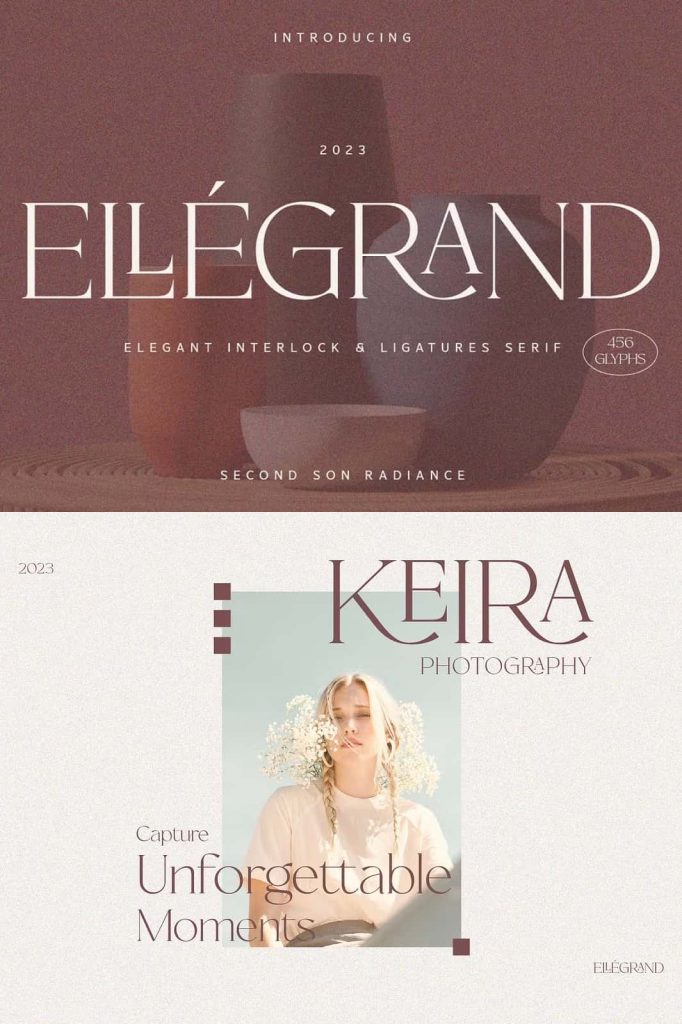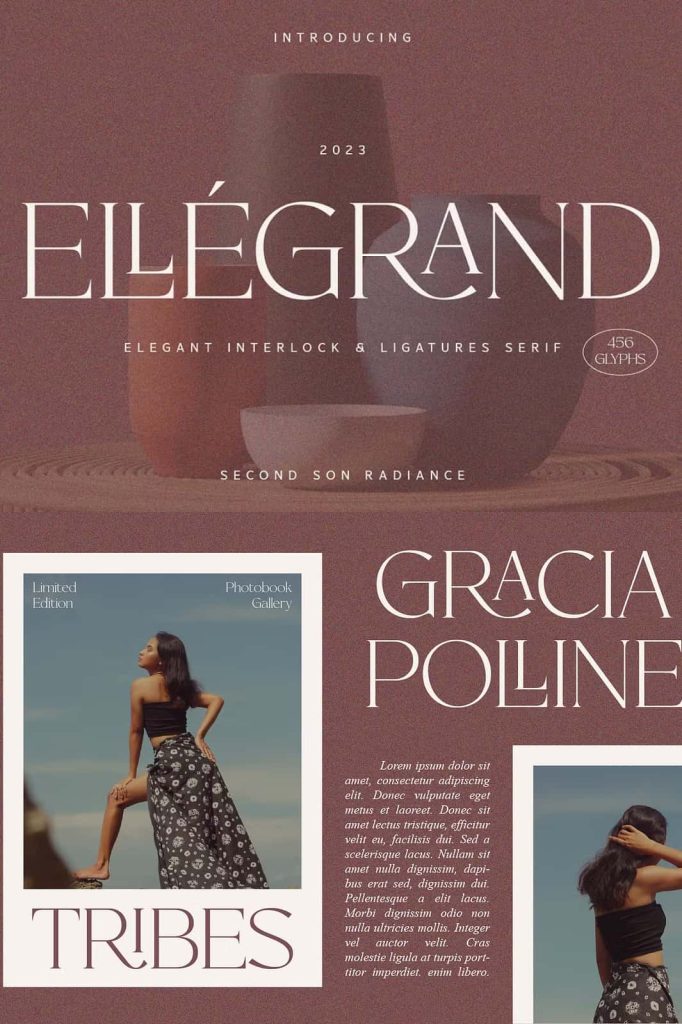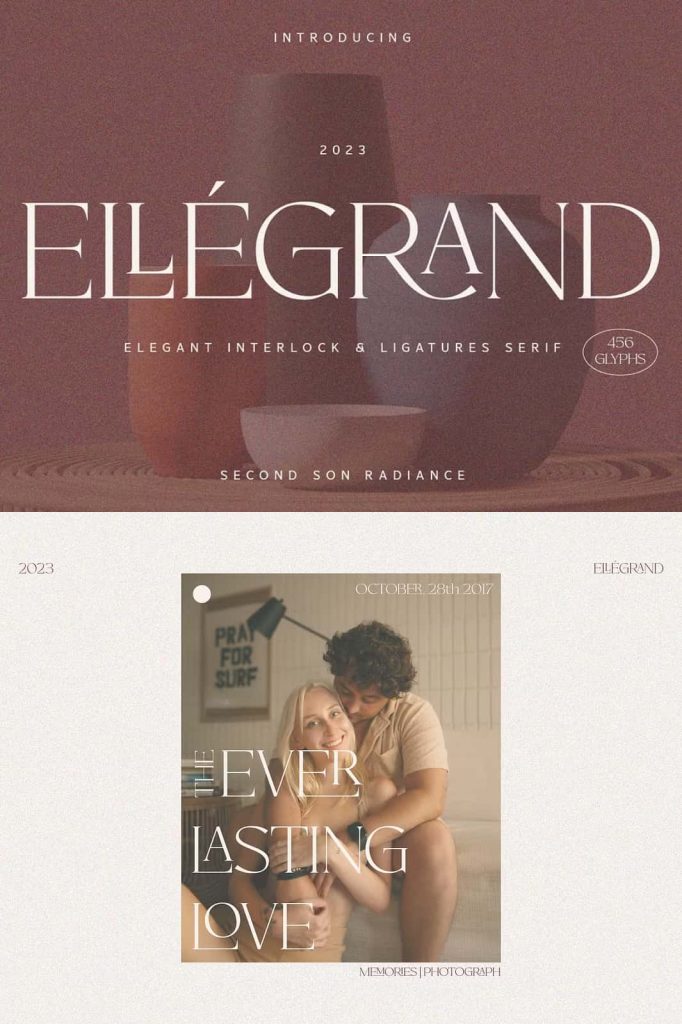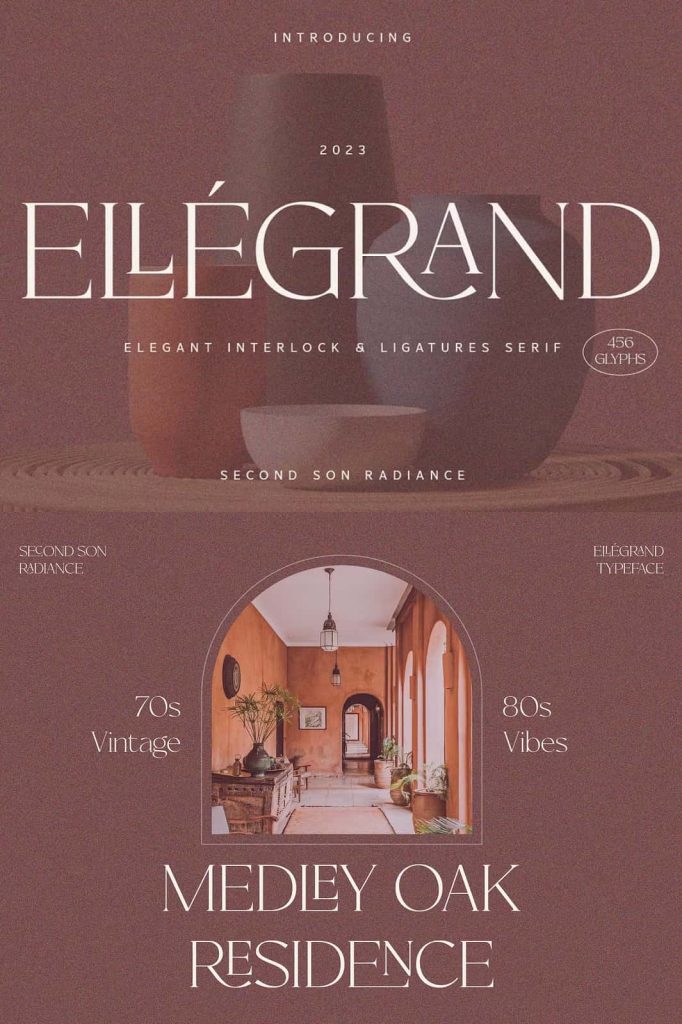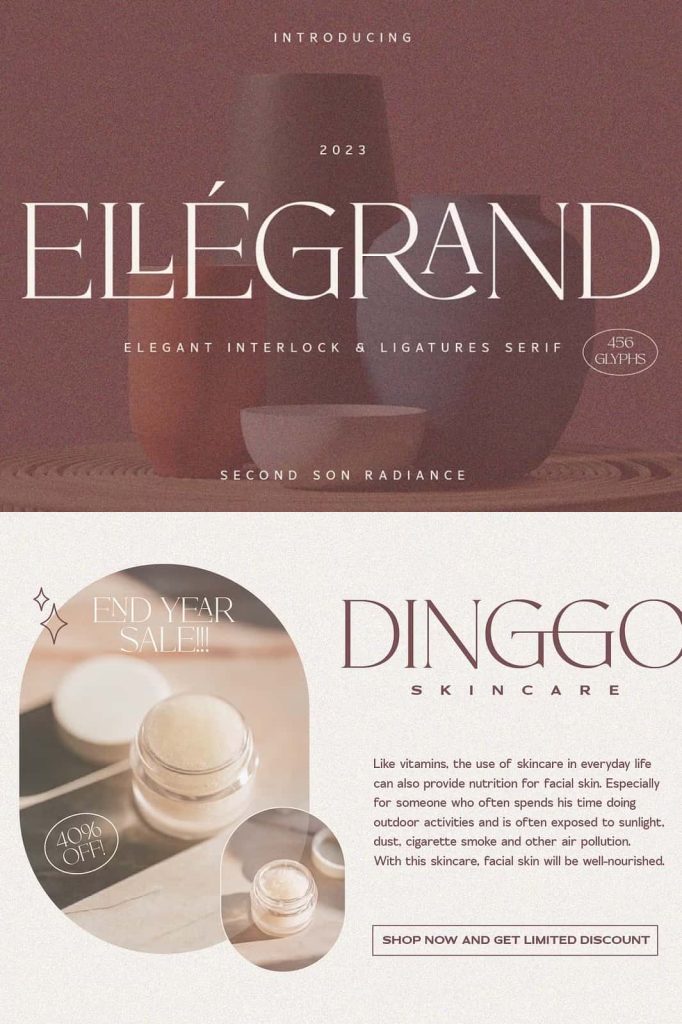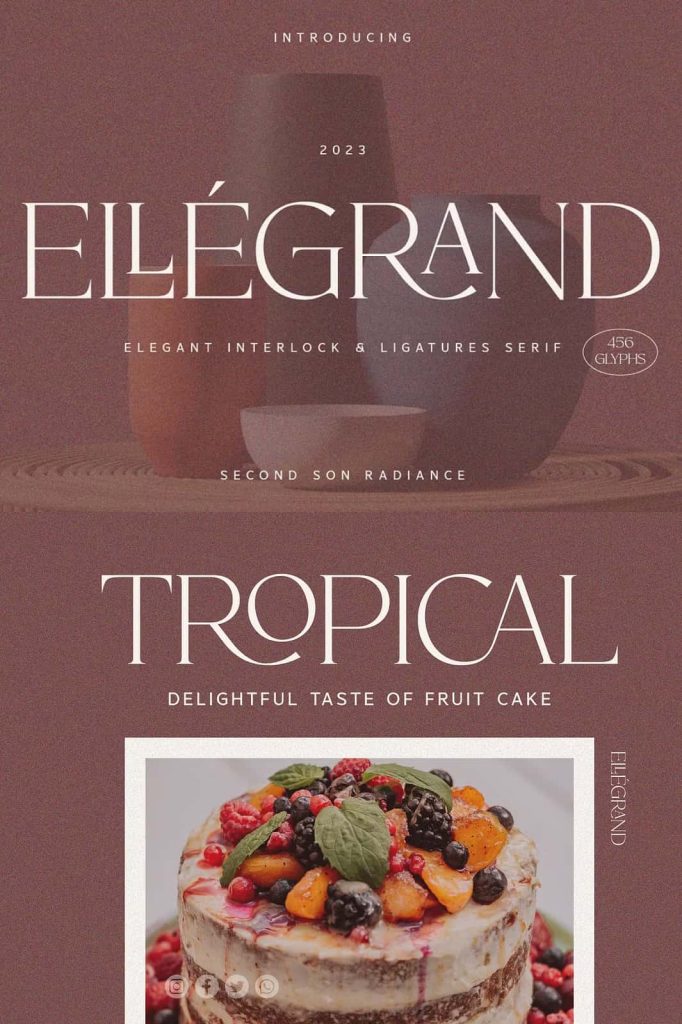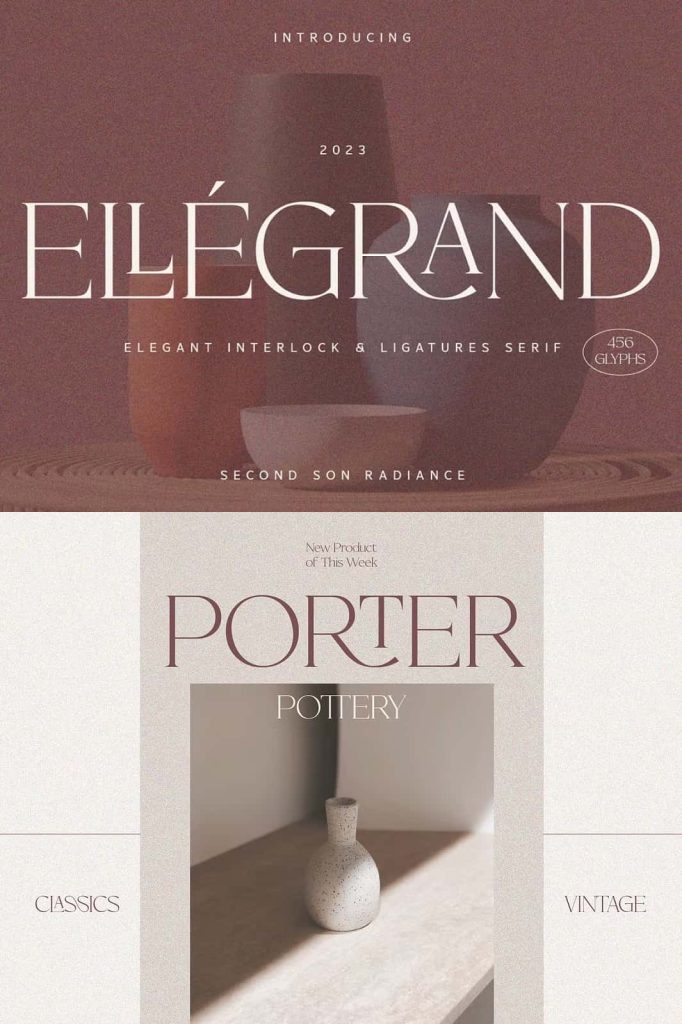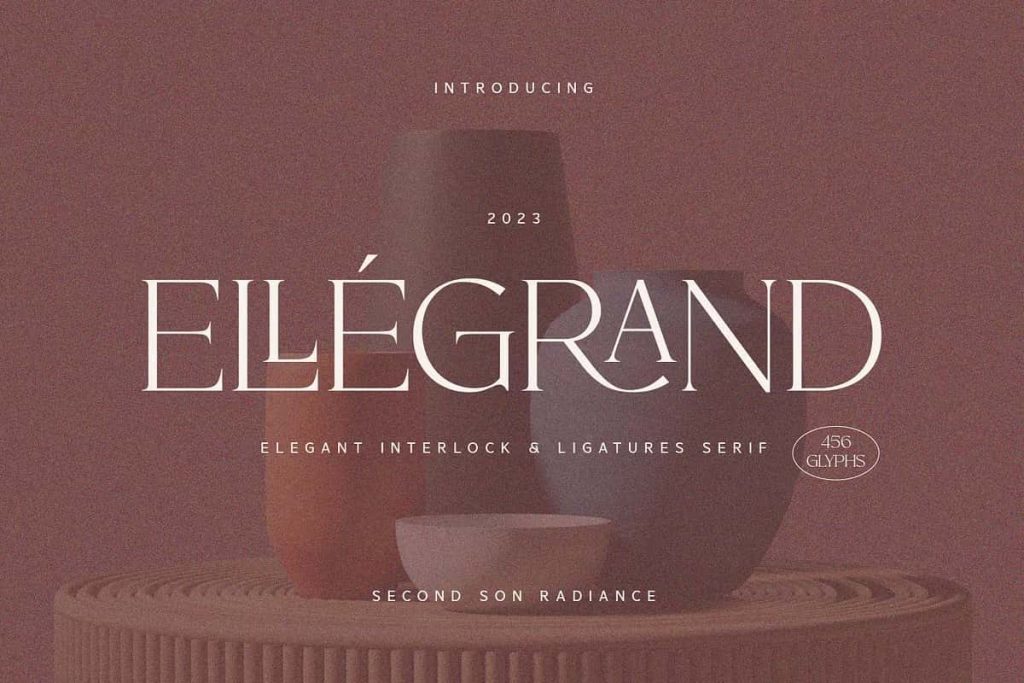
SS Ellegrand – Ligatures Serif FontleastedJanuary 9, 2025Fonts legrand is a sophisticated, charming serif font with a fashionable touch. Specially designed for luxury, elegant, feminine projects, this font is perfectly suitable for creating modern, chic designs. Download